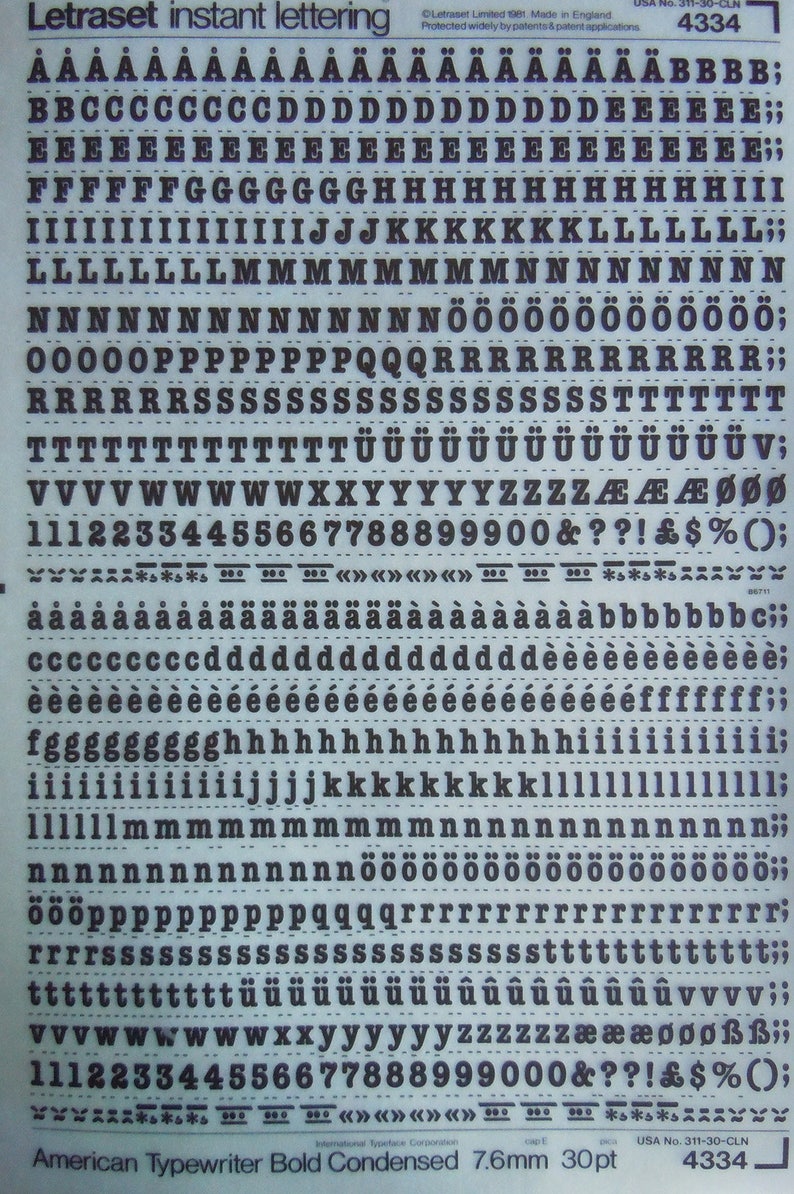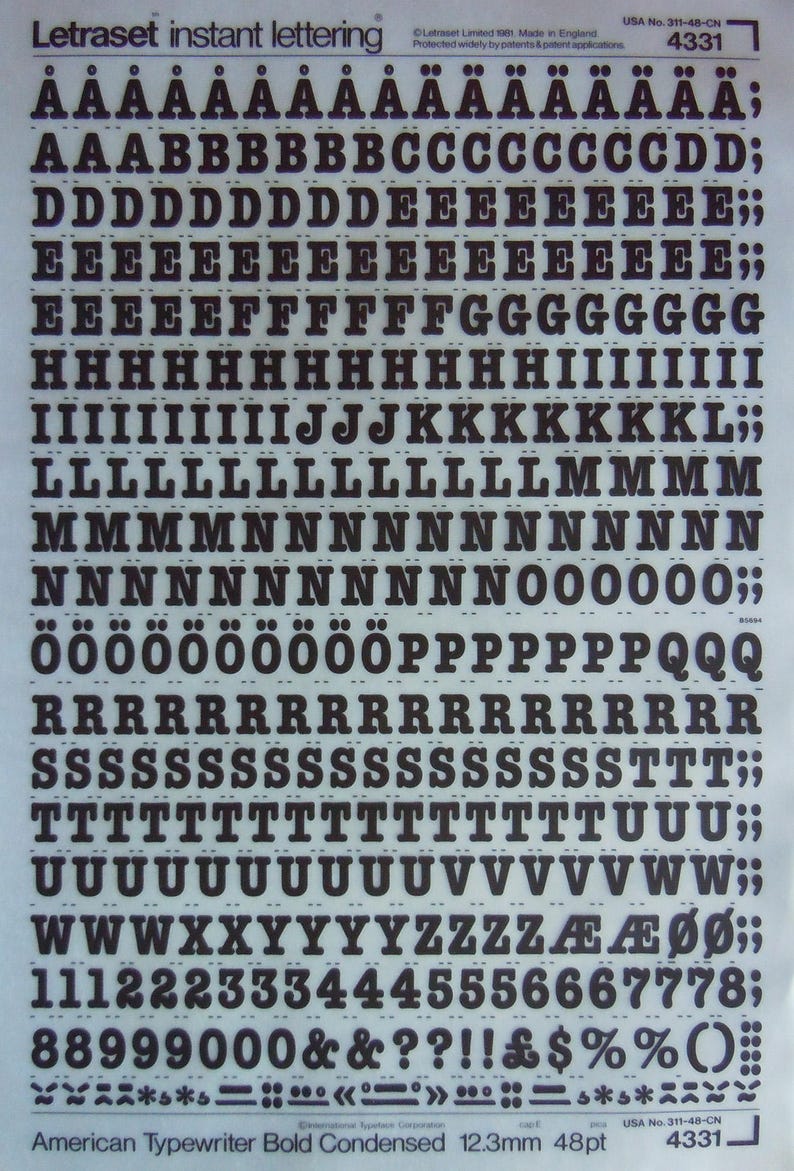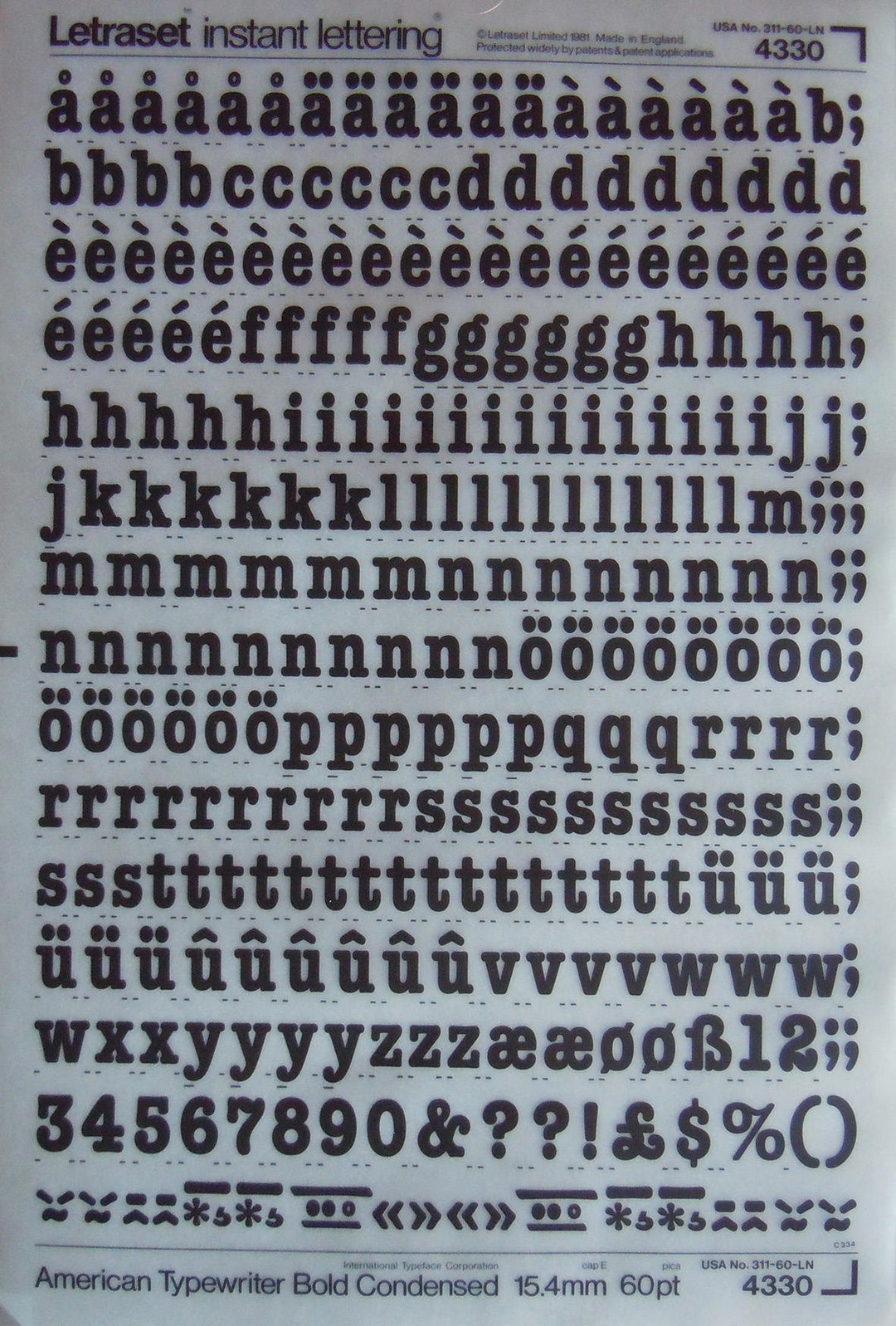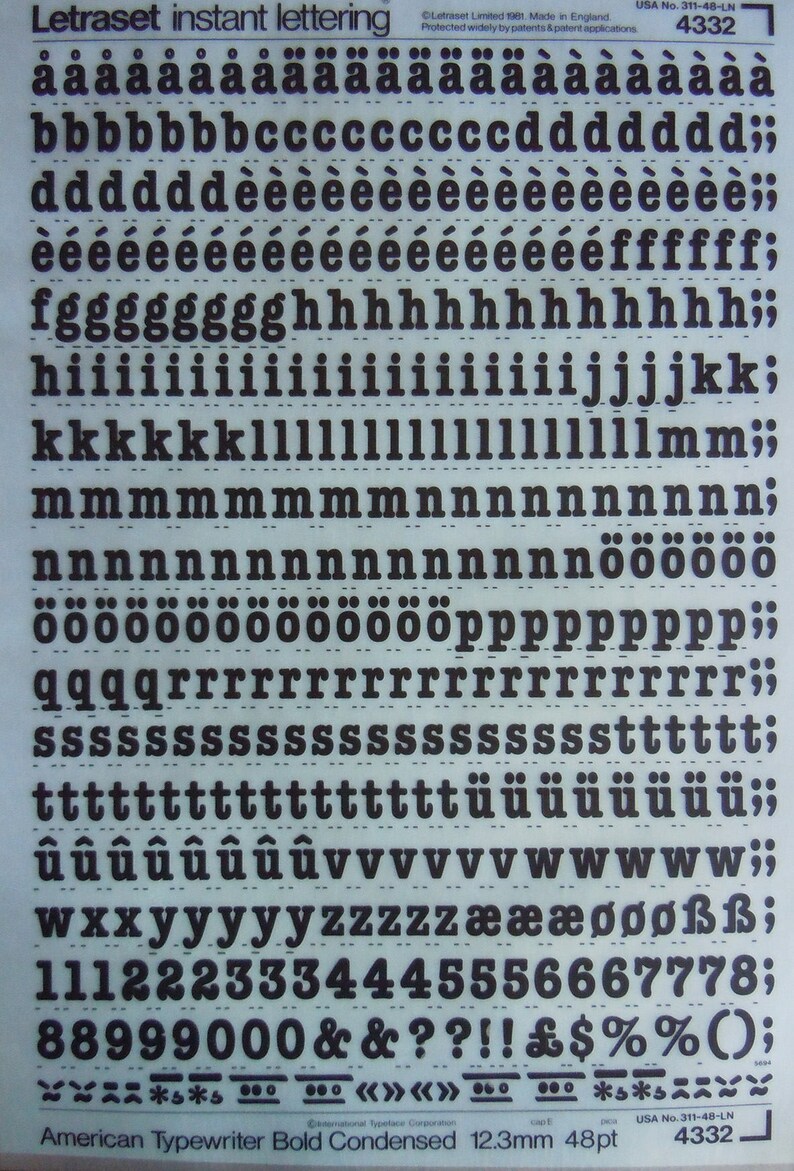
Typewriter Condensed Bold Font . licensed for commercial and personal use. the american typewriter bold condensed font brings firmer and bolder letters and requires caution in the creation of art in order not to lose readability, making. typewriter condensed is a fancy type font that can be used on any device such as pc, mac, linux, ios and android. the typewriter condensed bold font brings firmer and bolder letters and requires caution in the creation of art in order not to lose. download free typewriter condensed font, view its character map and. Download and install the typewriter.
the american typewriter bold condensed font brings firmer and bolder letters and requires caution in the creation of art in order not to lose readability, making. licensed for commercial and personal use. Download and install the typewriter. the typewriter condensed bold font brings firmer and bolder letters and requires caution in the creation of art in order not to lose. download free typewriter condensed font, view its character map and. typewriter condensed is a fancy type font that can be used on any device such as pc, mac, linux, ios and android.
Typewriter Condensed Bold Font Download and install the typewriter. typewriter condensed is a fancy type font that can be used on any device such as pc, mac, linux, ios and android. download free typewriter condensed font, view its character map and. Download and install the typewriter. licensed for commercial and personal use. the typewriter condensed bold font brings firmer and bolder letters and requires caution in the creation of art in order not to lose. the american typewriter bold condensed font brings firmer and bolder letters and requires caution in the creation of art in order not to lose readability, making.
ITCAmericanTypewriterCondensed Bold Download for free at Free Fonts Typewriter Condensed Bold Font the typewriter condensed bold font brings firmer and bolder letters and requires caution in the creation of art in order not to lose. the american typewriter bold condensed font brings firmer and bolder letters and requires caution in the creation of art in order not to lose readability, making. typewriter condensed is a fancy type font that. Typewriter Condensed Bold Font.
American Typewriter Condensed Light, Medium and Bold Flickr Typewriter Condensed Bold Font the typewriter condensed bold font brings firmer and bolder letters and requires caution in the creation of art in order not to lose. download free typewriter condensed font, view its character map and. the american typewriter bold condensed font brings firmer and bolder letters and requires caution in the creation of art in order not to lose. Typewriter Condensed Bold Font.
Typewriter_Condensedotf字体下载,Typewriter Condensed Bold 62098 Version 1. Typewriter Condensed Bold Font Download and install the typewriter. typewriter condensed is a fancy type font that can be used on any device such as pc, mac, linux, ios and android. download free typewriter condensed font, view its character map and. the typewriter condensed bold font brings firmer and bolder letters and requires caution in the creation of art in order. Typewriter Condensed Bold Font.
Typewriter_Condensed Bold Font Typewriter Condensed Bold Font download free typewriter condensed font, view its character map and. typewriter condensed is a fancy type font that can be used on any device such as pc, mac, linux, ios and android. the american typewriter bold condensed font brings firmer and bolder letters and requires caution in the creation of art in order not to lose readability,. Typewriter Condensed Bold Font.
AMERICAN TYPEWRITER BOLD Condensed Mecanorma Letter/number Etsy Typewriter Condensed Bold Font typewriter condensed is a fancy type font that can be used on any device such as pc, mac, linux, ios and android. Download and install the typewriter. download free typewriter condensed font, view its character map and. the typewriter condensed bold font brings firmer and bolder letters and requires caution in the creation of art in order. Typewriter Condensed Bold Font.
AMERICAN TYPEWRITER Bold CONDENSED Letraset Instant Rub on Etsy Typewriter Condensed Bold Font download free typewriter condensed font, view its character map and. typewriter condensed is a fancy type font that can be used on any device such as pc, mac, linux, ios and android. Download and install the typewriter. the typewriter condensed bold font brings firmer and bolder letters and requires caution in the creation of art in order. Typewriter Condensed Bold Font.
Typewriter_Condensed Bold font Typewriter Condensed Bold Font the typewriter condensed bold font brings firmer and bolder letters and requires caution in the creation of art in order not to lose. licensed for commercial and personal use. typewriter condensed is a fancy type font that can be used on any device such as pc, mac, linux, ios and android. the american typewriter bold condensed. Typewriter Condensed Bold Font.
AMERICAN TYPEWRITER Bold CONDENSED Letraset Instant Rub on Etsy Typewriter Condensed Bold Font download free typewriter condensed font, view its character map and. typewriter condensed is a fancy type font that can be used on any device such as pc, mac, linux, ios and android. the american typewriter bold condensed font brings firmer and bolder letters and requires caution in the creation of art in order not to lose readability,. Typewriter Condensed Bold Font.
Modern Typewriter Condensed Light Regular Font FontYukle Typewriter Condensed Bold Font licensed for commercial and personal use. the typewriter condensed bold font brings firmer and bolder letters and requires caution in the creation of art in order not to lose. download free typewriter condensed font, view its character map and. typewriter condensed is a fancy type font that can be used on any device such as pc,. Typewriter Condensed Bold Font.